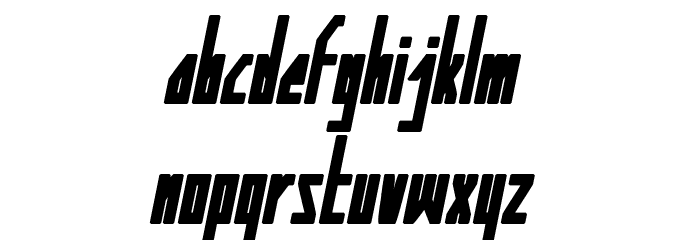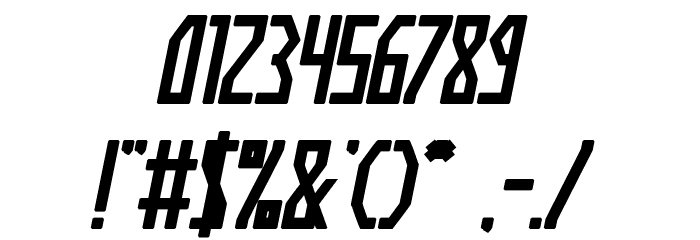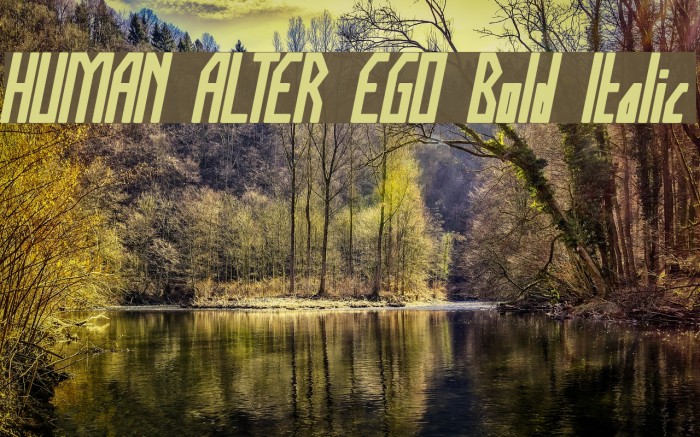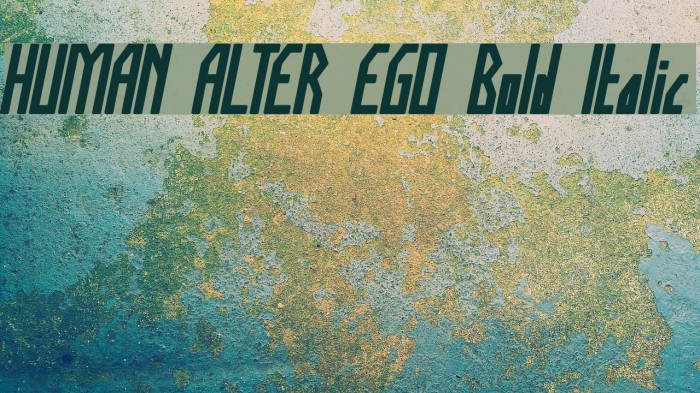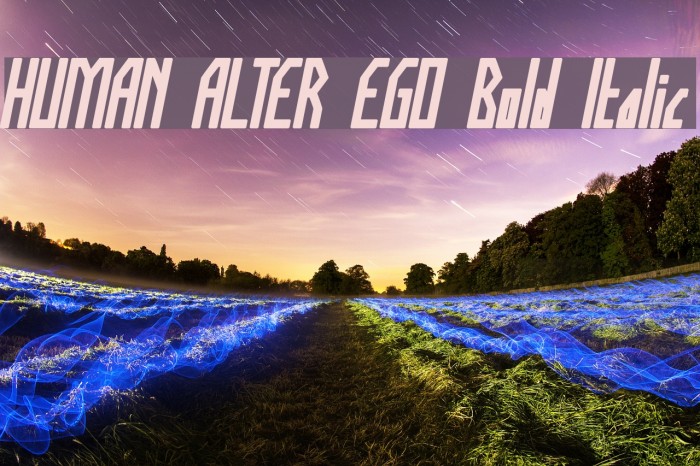
HUMAN ALTER EGO Bold Italic Font
This font features a bold and italicized style with a modern, edgy appearance. The characters are sharply angled, creating a dynamic and energetic look. The uppercase letters are tall and narrow, while the lowercase letters maintain a consistent style with a slight slant, enhancing the italic effect. The numbers and special characters follow the same design principles, ensuring uniformity across all elements. The font's unique style makes it suitable for projects that require a strong visual impact.
A bold, italicized font with sharp angles and a modern, dynamic style.
- Proposed Projects: Ideal for branding, posters, and headlines that require a bold and modern aesthetic.
- Character Spacing: Tight